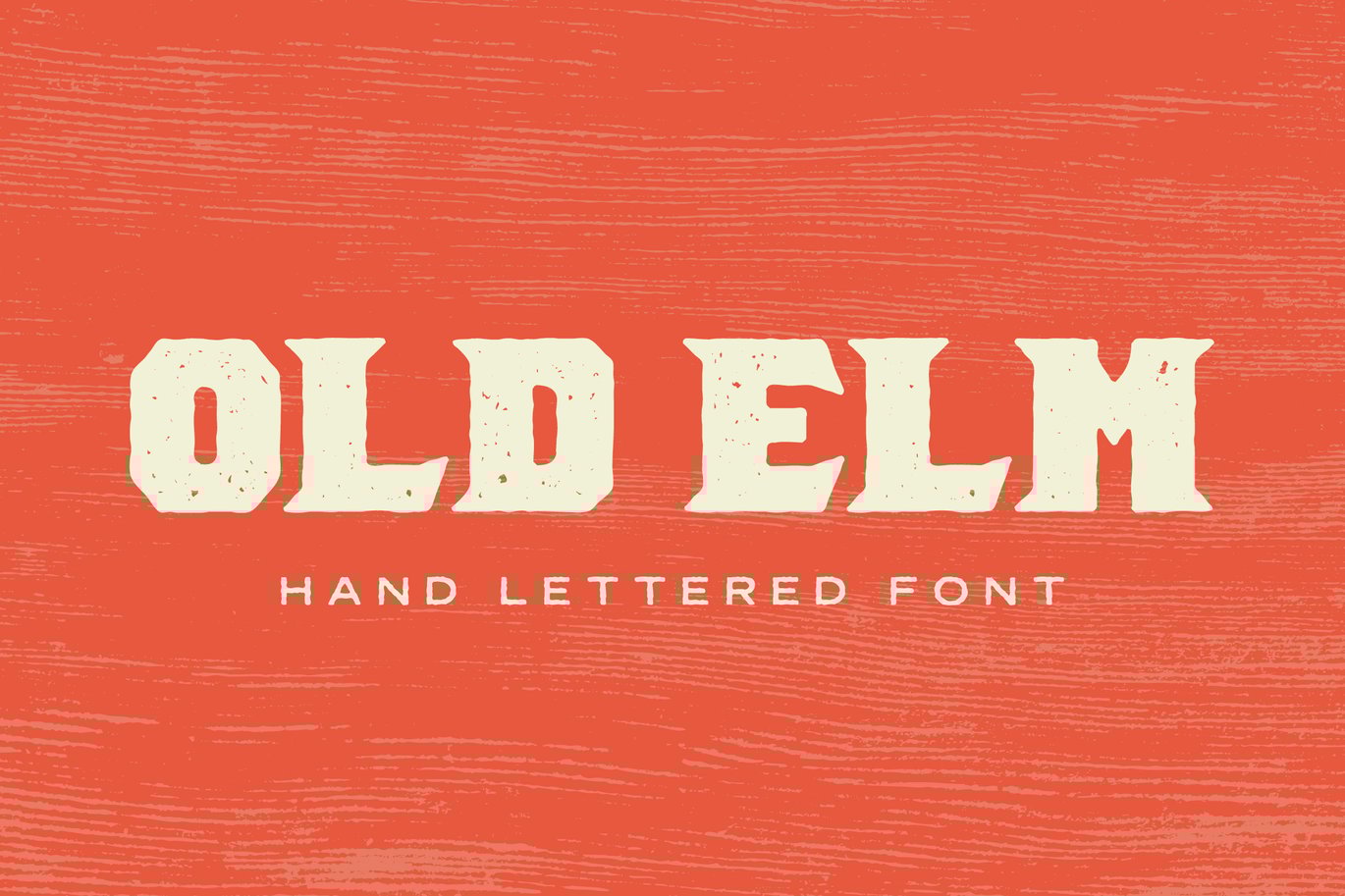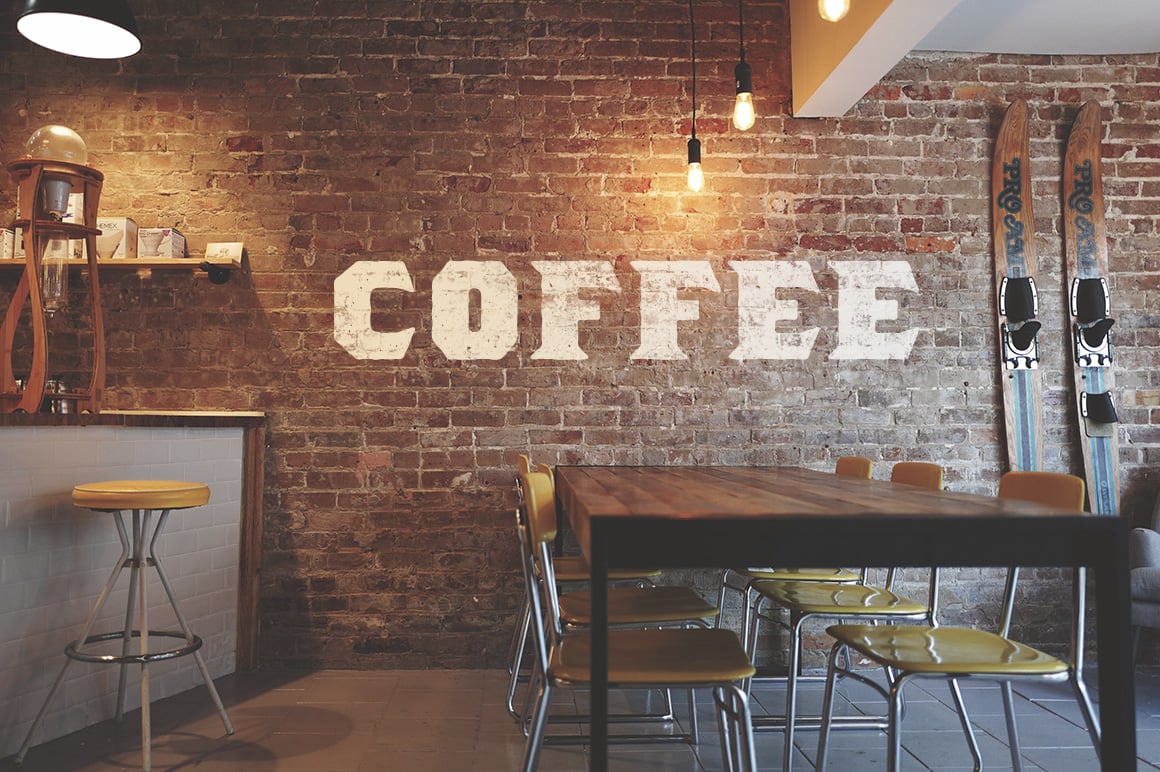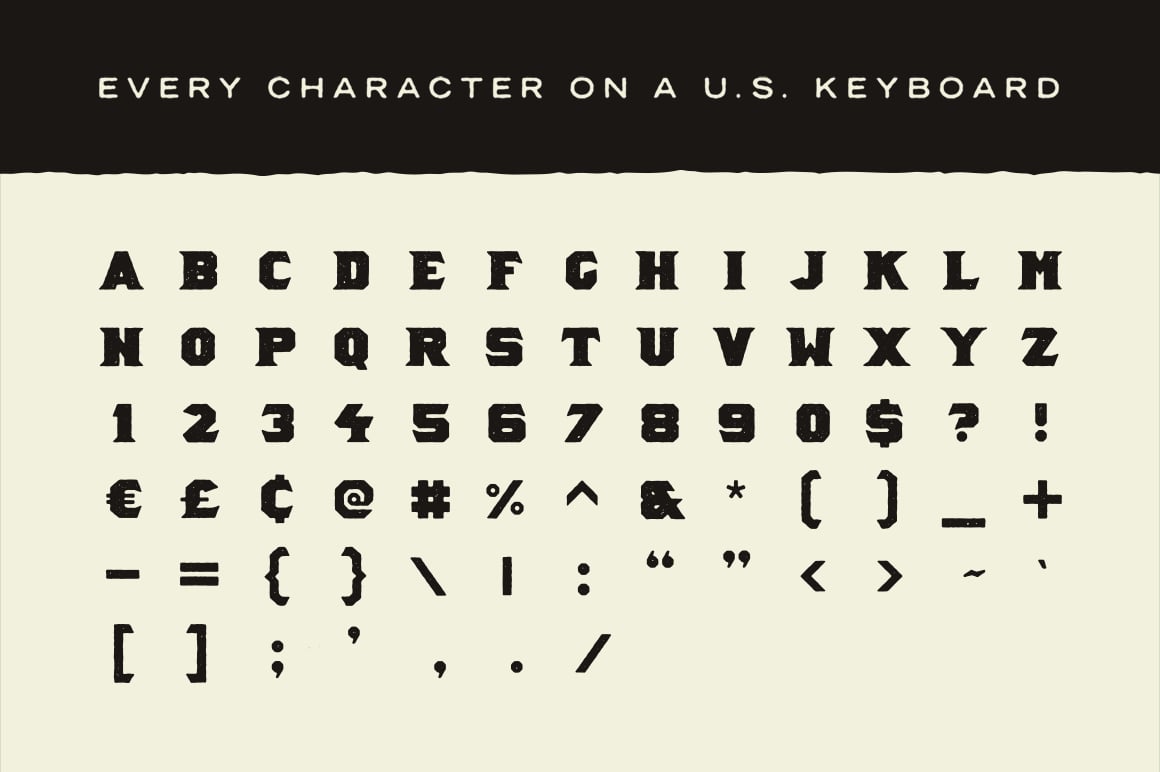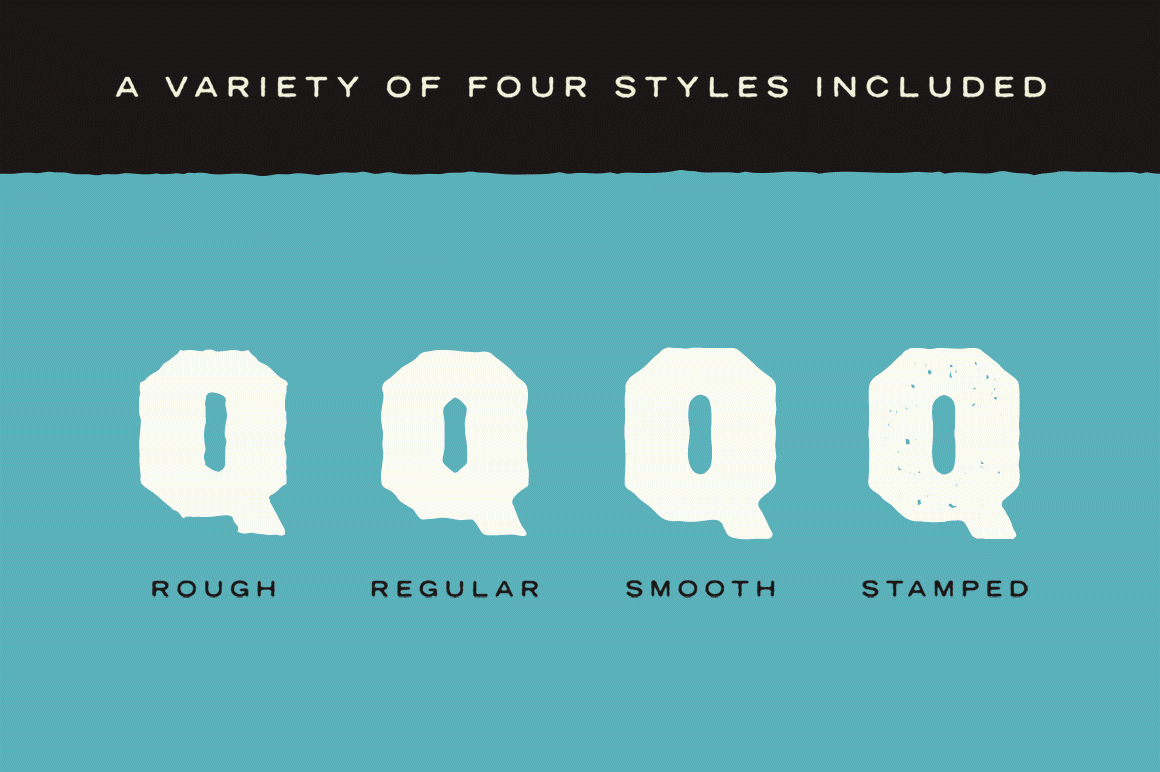
Old Elm Font
Proudly presenting a rugged vintage slab serif typeface illustrated by hand for an authentic old school look and feel. I originally sketched the characters with a pencil by hand, and then traced them by hand via a pen before scanning and converting to the actual font.
Four variations Included: Four unique variations are included. Select the option that works best for each design project:
- Rough
- Smooth
- Stamped
72 Characters Included: Few things are more frustrated than finding the perfect font only to realize it doesn’t include that punctuation character , or even simple number you need. I didn’t skimp on the characters. You get every single character on a U.S. keyboard, plus the British Pound symbol, the Euro symbol, and the U.S. cent symbol. 72 characters in all.